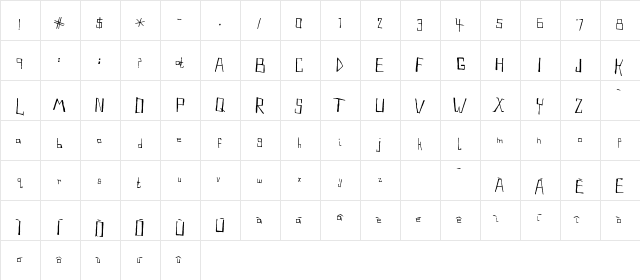
NaturalProducts Regular
Design Context for NaturalProducts Typeface
NaturalProducts is a composed and adaptable typeface that performs quietly and consistently across a wide range of design contexts.